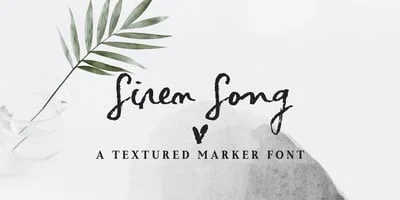
Siren Song Font
This enchanting and elegant typeface is perfect for fantasy book covers, mystical branding, beauty products, wedding invitations, and creative storytelling projects. It adds a magical and ethereal vibe, making your design feel like a siren’s irresistible melody.
What makes Siren Song Font so exciting is its graceful curves, delicate lines, and unique character shapes that evoke mystery and allure. It’s the perfect choice for designers who want to infuse their projects with sophistication and a hint of enchantment.
The Siren Song Font family includes styles such as Regular, Italic, and Swash versions, complete with uppercase and lowercase letters, numerals, punctuation, and multilingual support. These features give designers the flexibility to create captivating and immersive designs.